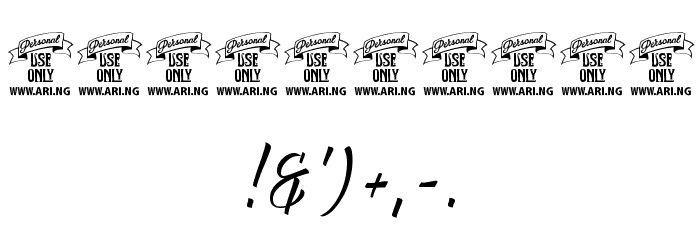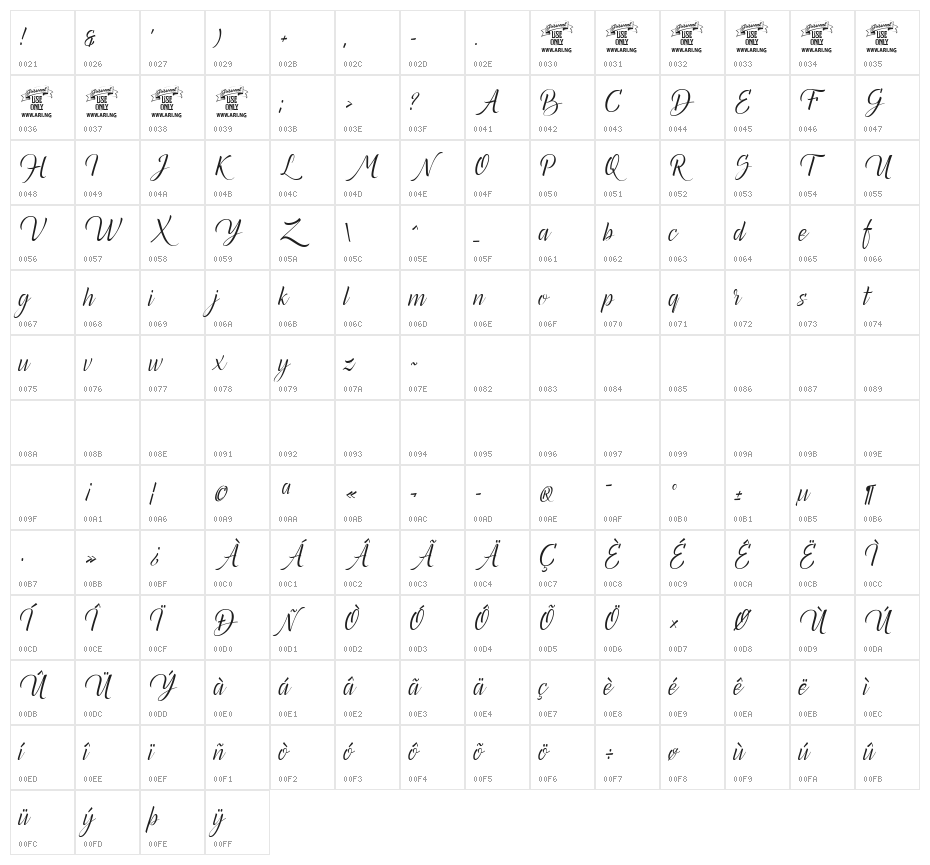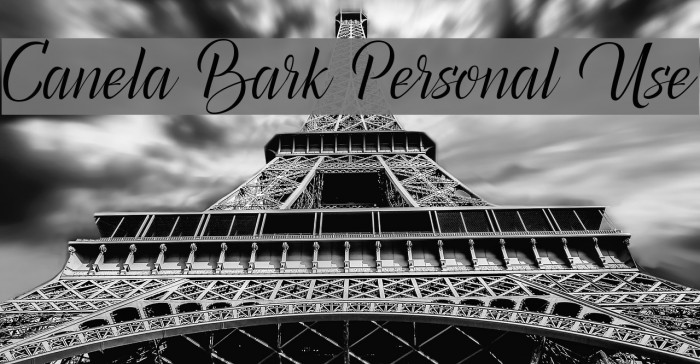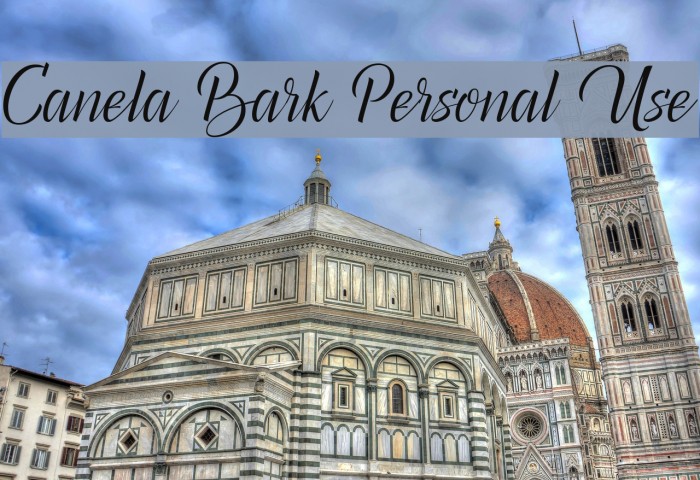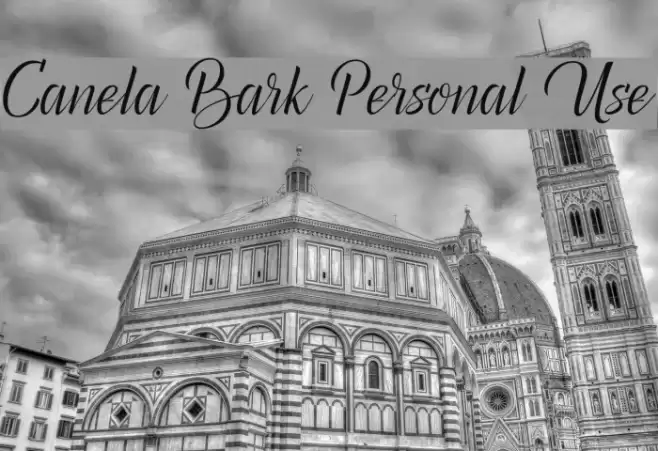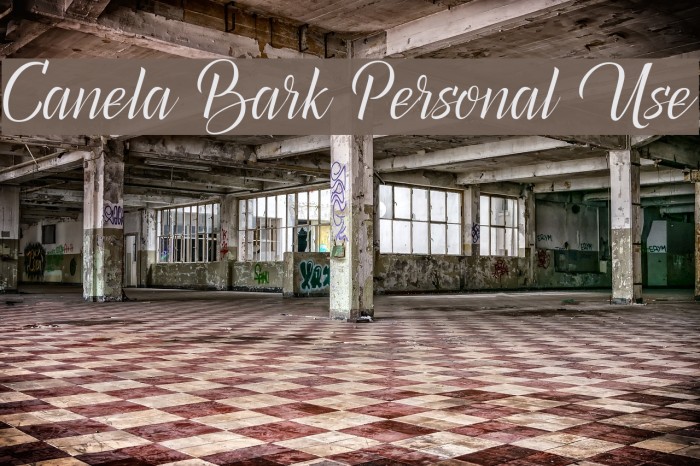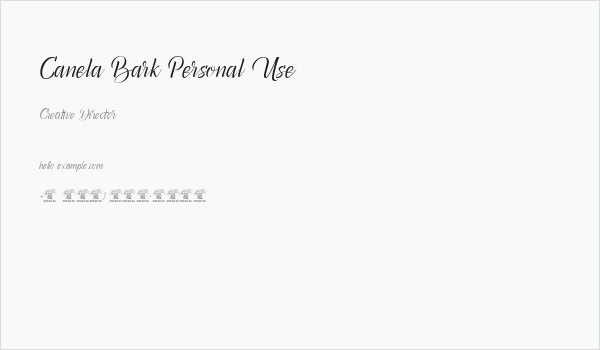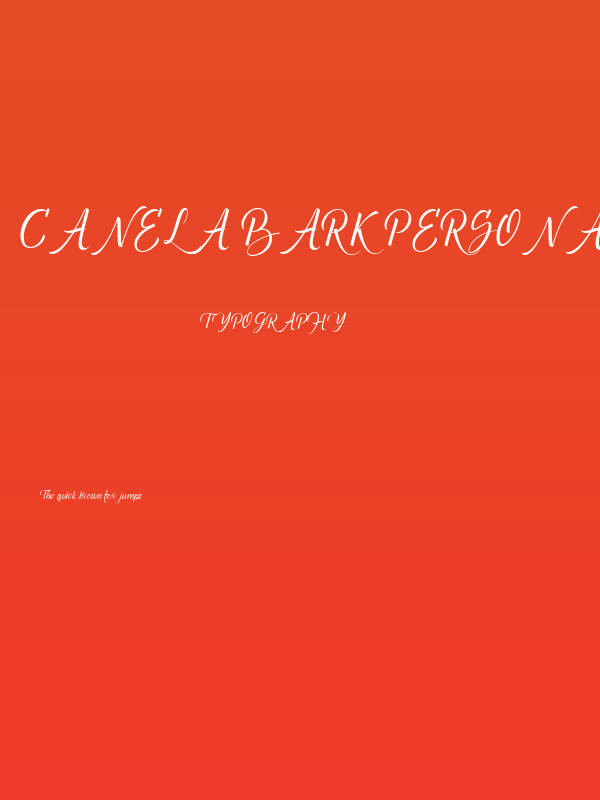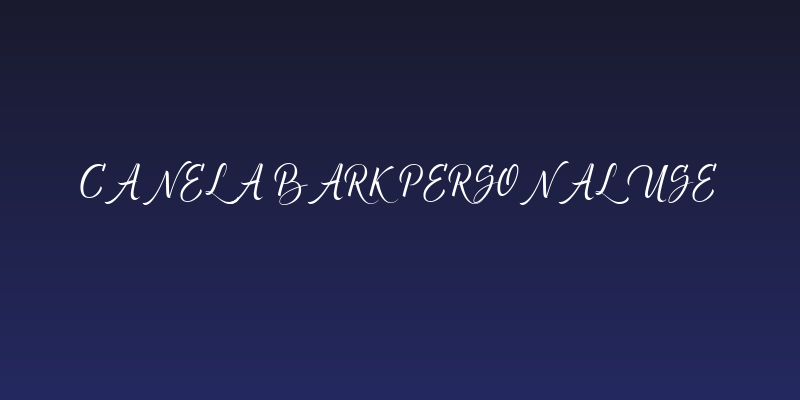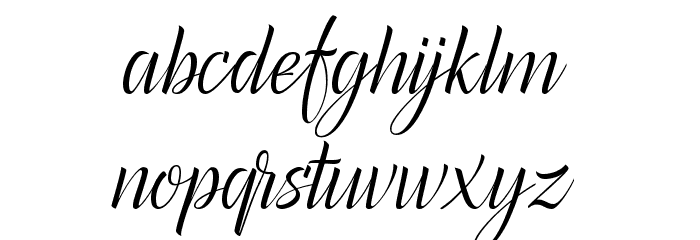
Canela Bark Personal Use Font
Canela Bark Personal Use Description
This elegant script font features flowing, cursive letters with a refined and sophisticated appearance. The uppercase letters are characterized by their graceful curves and sweeping lines, while the lowercase letters maintain a consistent style with a slightly more compact form. The font's design is both decorative and legible, making it suitable for a variety of applications. The numerals and special characters are crafted with the same attention to detail, ensuring a cohesive look across all text elements. The overall style is reminiscent of classic calligraphy, offering a timeless and versatile aesthetic.
| Proposed Projects | Ideal for wedding invitations, elegant branding, greeting cards, and decorative headings. |